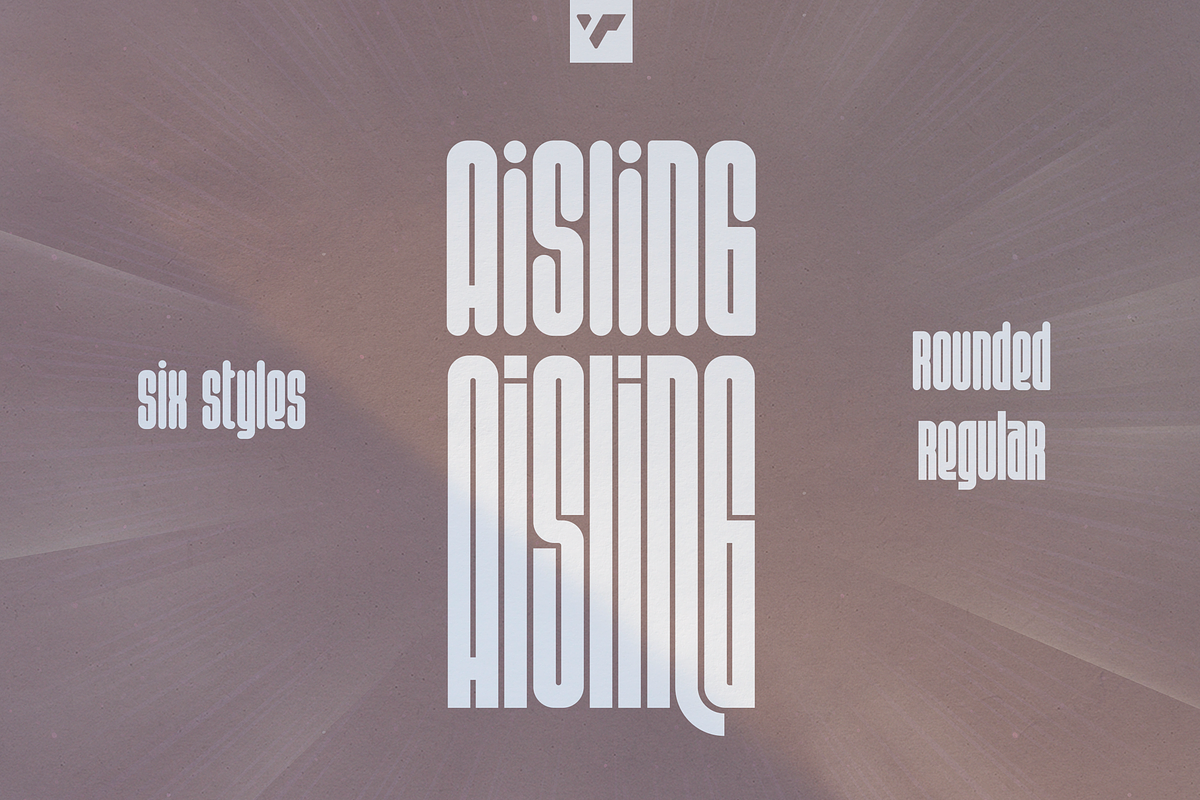
Aisling - Creative Display Typeface Free Download
The Aisling - Creative Display Typeface Free Download is a bold and unique display font designed to make a statement in any design. Perfect for logos, posters, headlines, branding, and creative projects, this font adds an artistic touch with its dynamic and creative letterforms.
With its distinctive shapes and modern style, Aisling offers versatility and impact, making it ideal for projects that require attention-grabbing typography. It includes uppercase and lowercase letters, numbers, punctuation, and multilingual support, making it adaptable for various design applications.